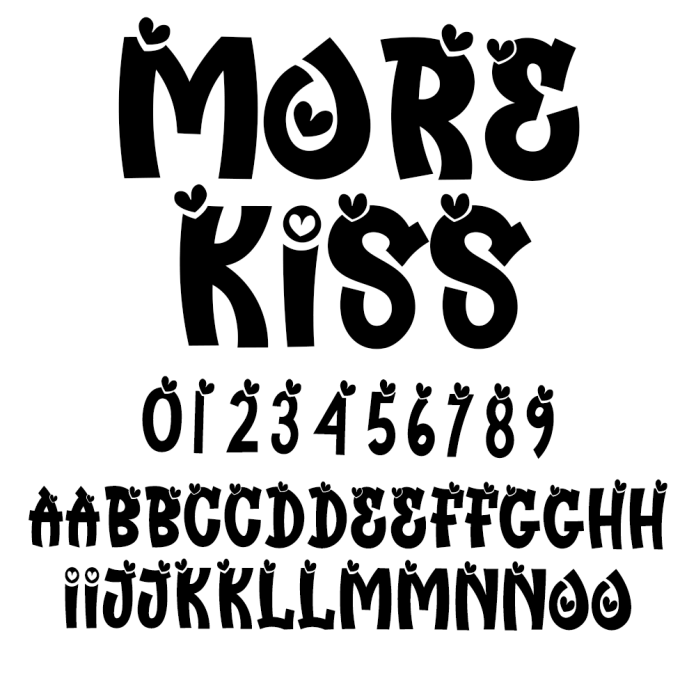
More Kiss Font is a stylish and incredibly elegant script font. It looks stunning on wedding invitations, thank you cards, quotes, greeting cards, logos, business cards and every other design which needs a handwritten touch.